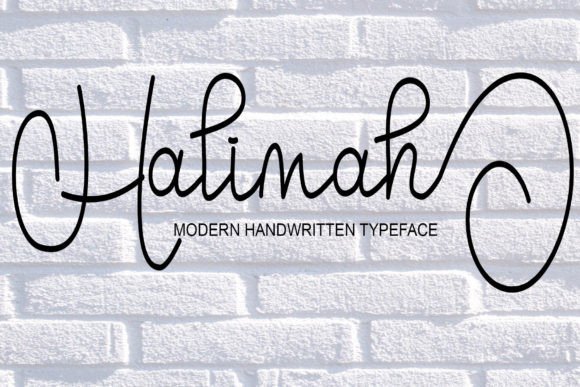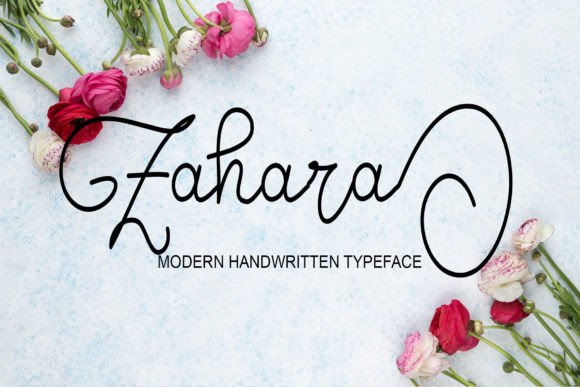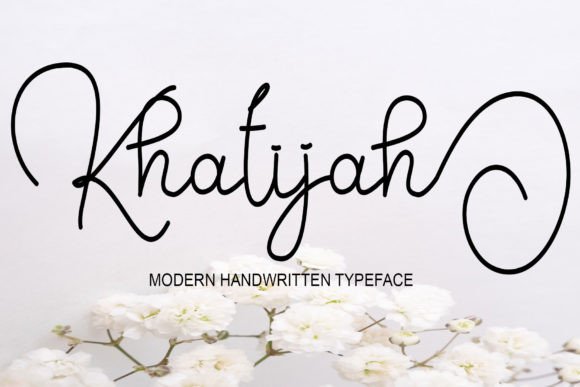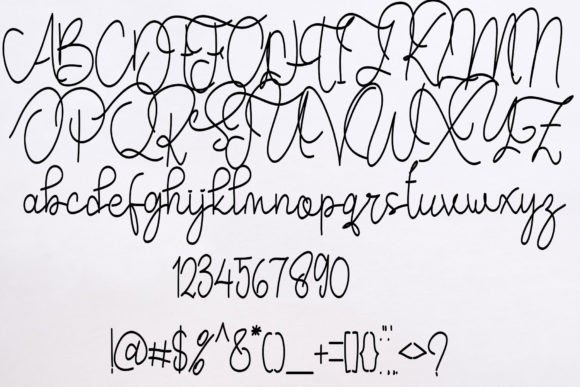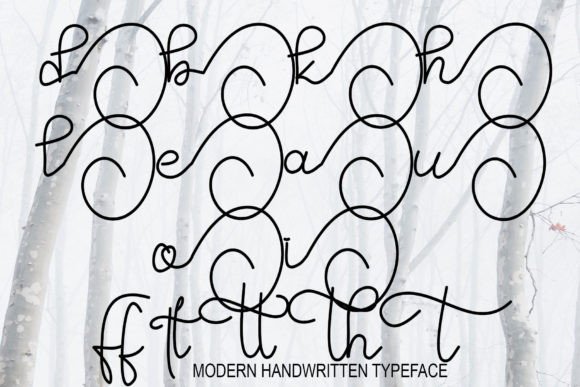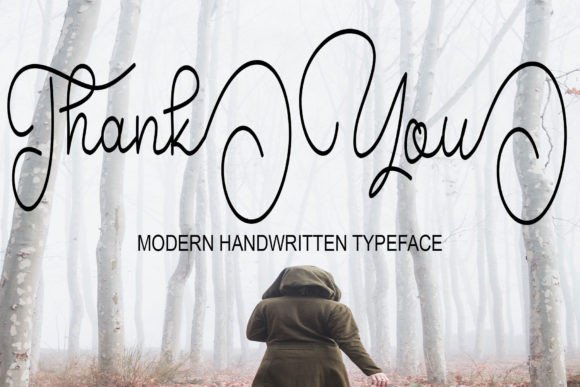
Introduction to Saila Font
Saila is a modern handwritten font with a very elegant touch.
Saila font is perfect for logos, branding, wedding invitations, business cards, greeting cards, posters, magazines, social media, procreate font, planner prints, and websites Get creative with its unique playfulness, and use it to brighten up any crafting project.
Key Features of Saila Font